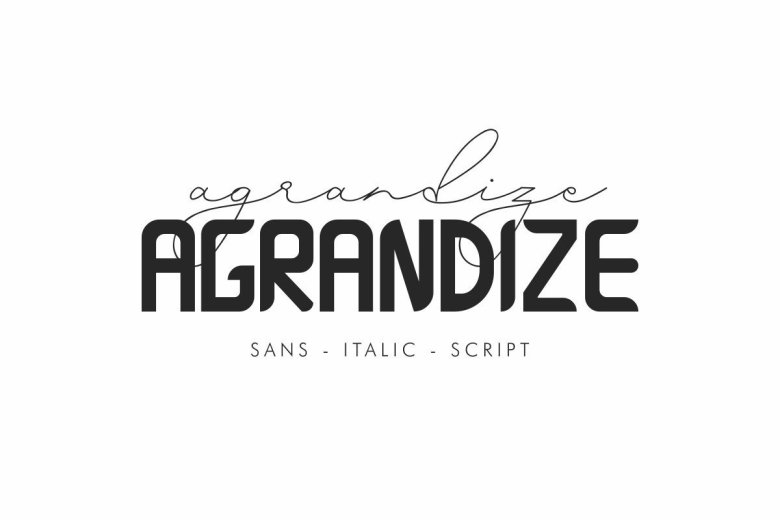
Agrandize Font Duo Free
Agrandize is a font duo font family with three different styles. Originally made by NihStudio Font Designers :  Widi and Sarah. Agrandize will be great for any projects (require extended license) including : branding, logo, stationery, business card, signage, flyer, brochure etc. The Agrandize has 3 styles : Regular, Bold and Script (signature)